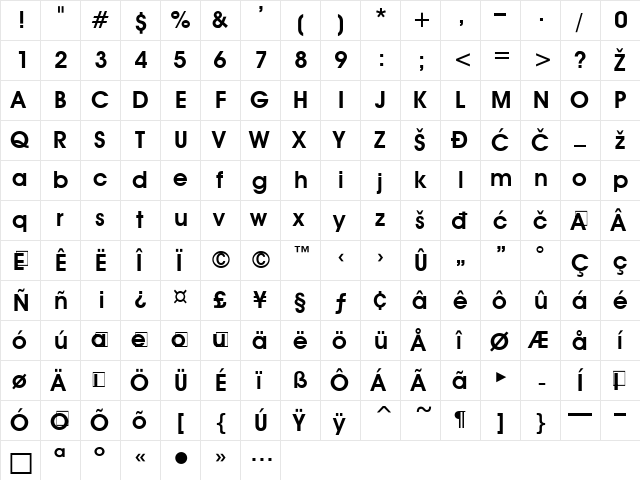
Avant Garde Bold YU Regular
Design Context for Avant Garde Bold YU Typeface
Avant Garde Bold YU takes a measured approach to typography — its balanced proportions and neutral character make it a reliable workhorse for both digital and print work. Its bold stroke weight gives it real presence on the page.
Pro Tip: Use Avant Garde Bold YU in both headline and body roles to test its range before committing to a single application.